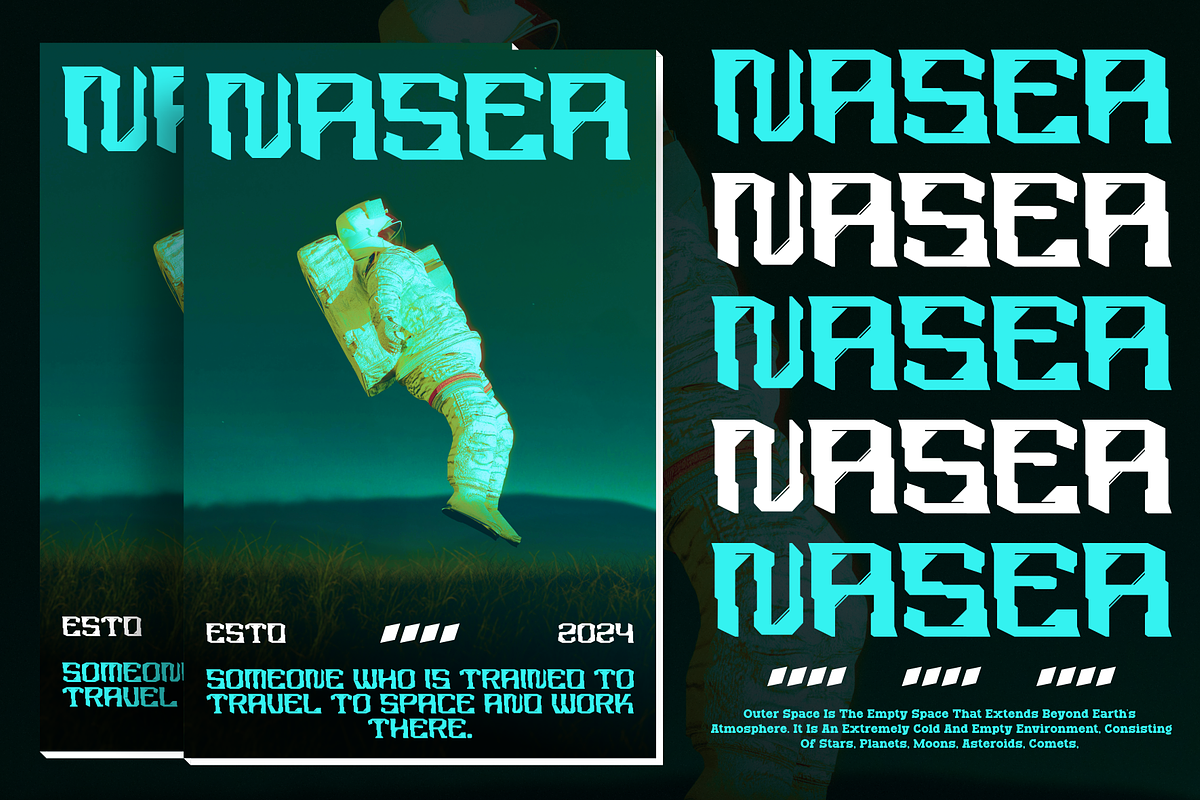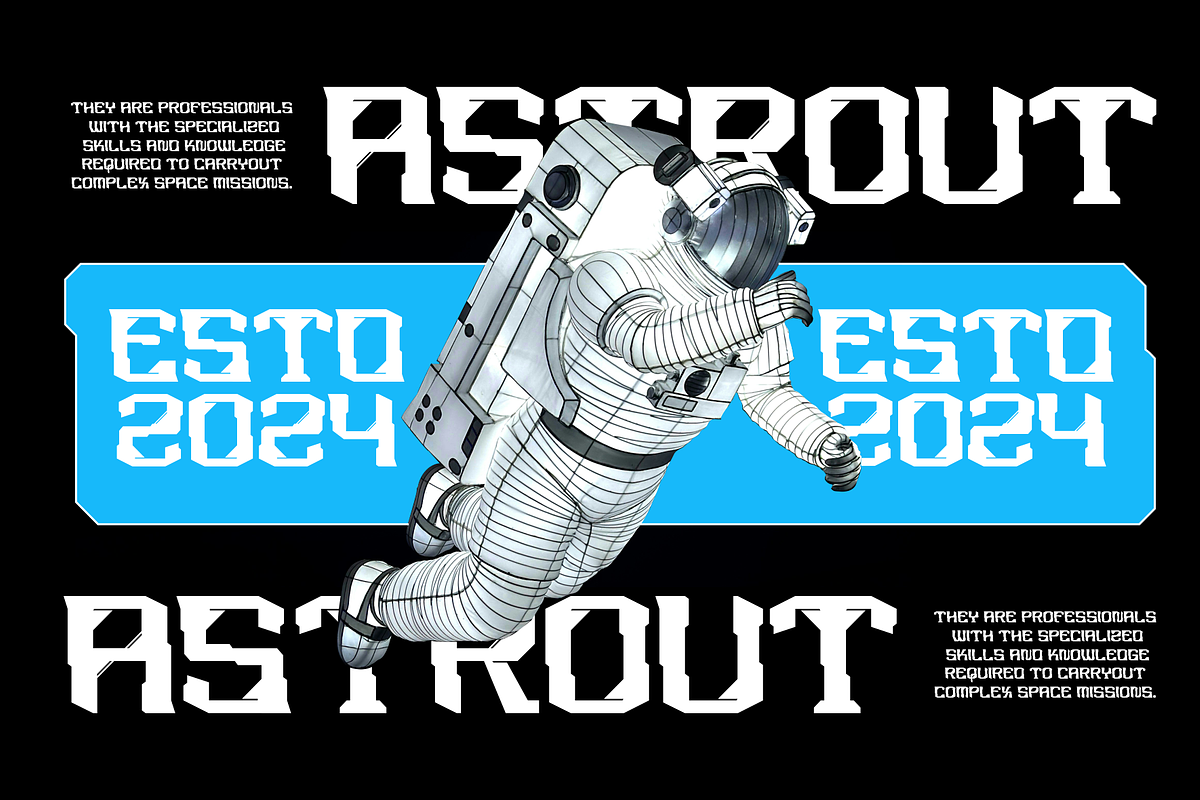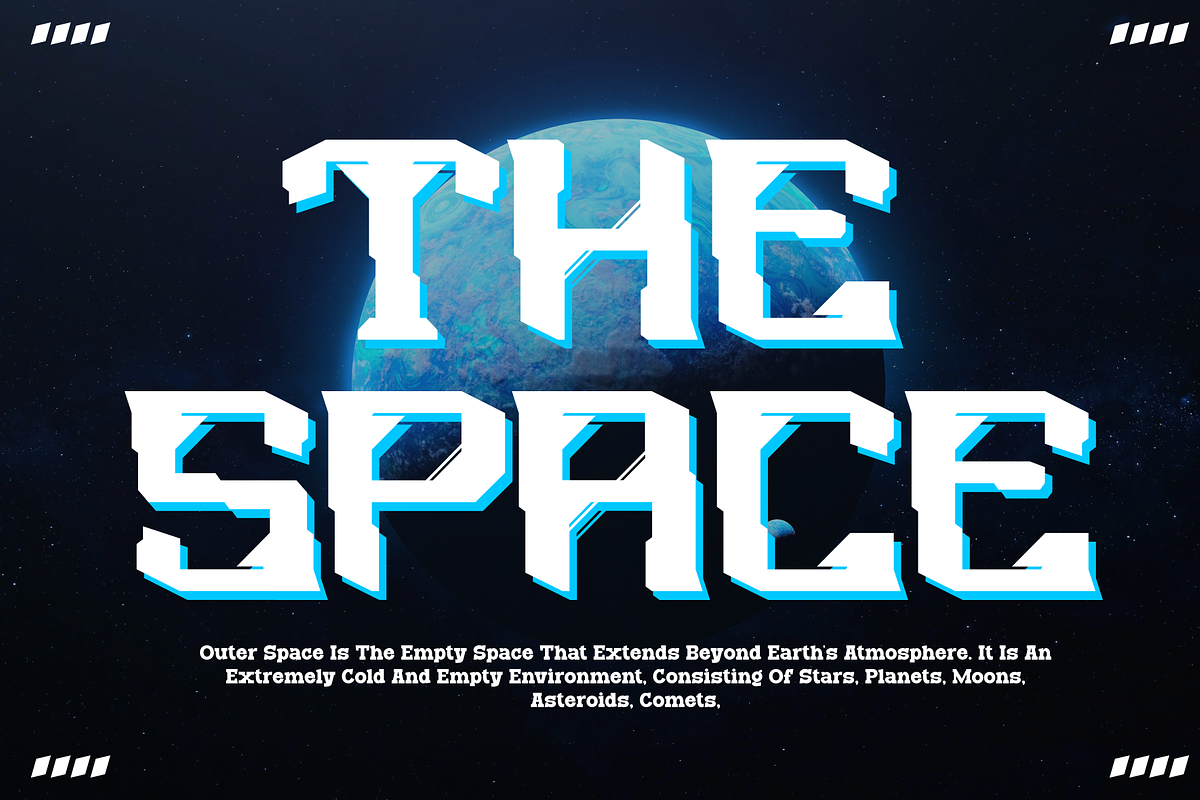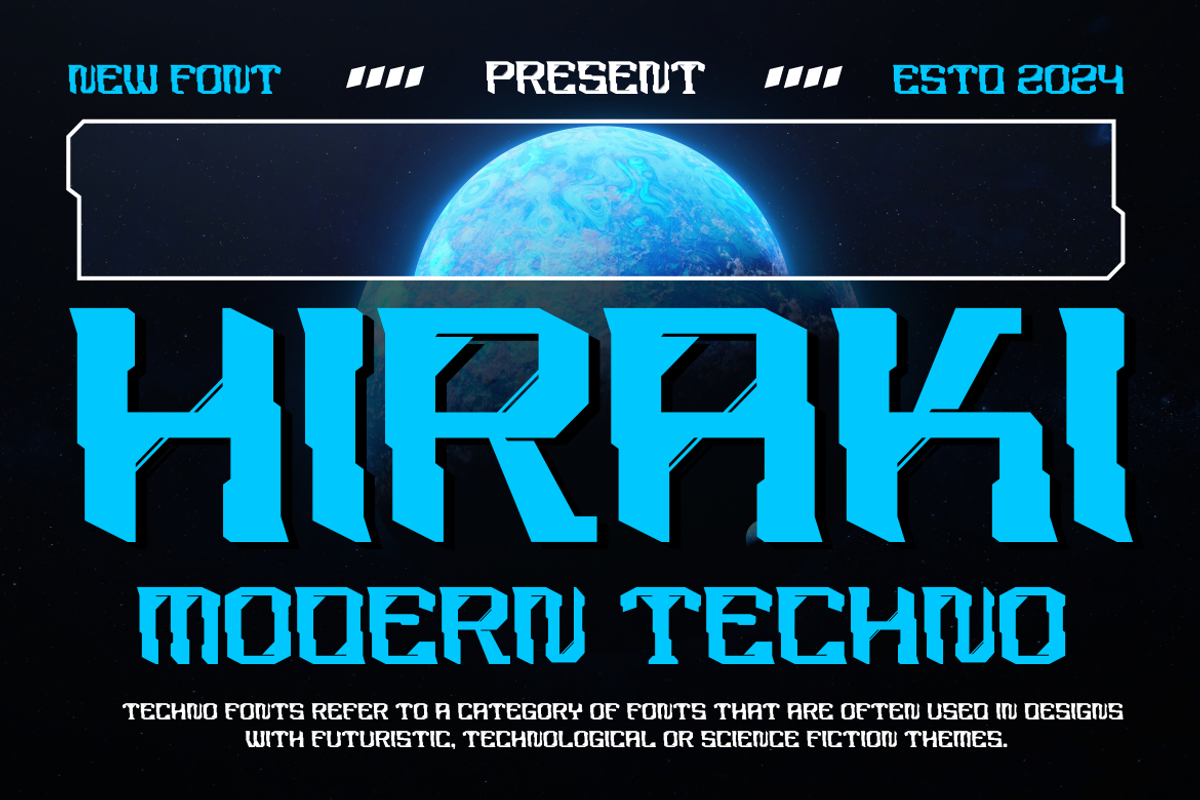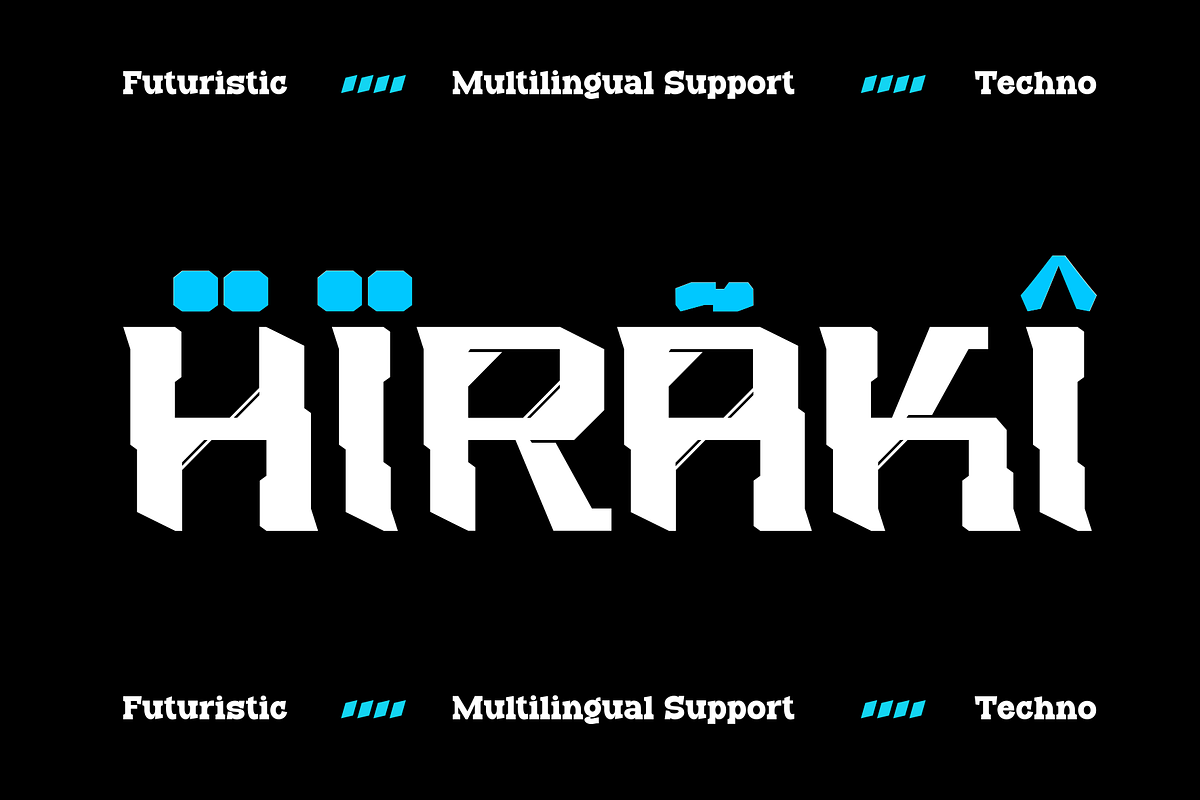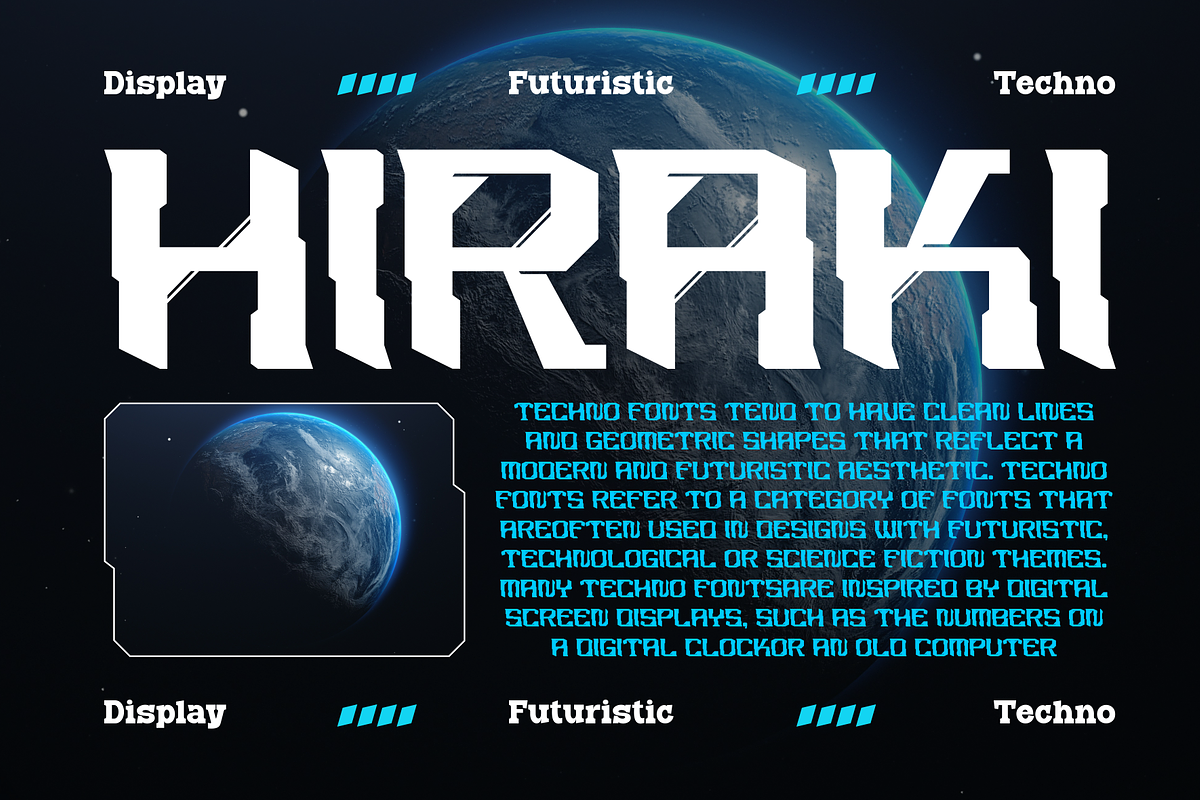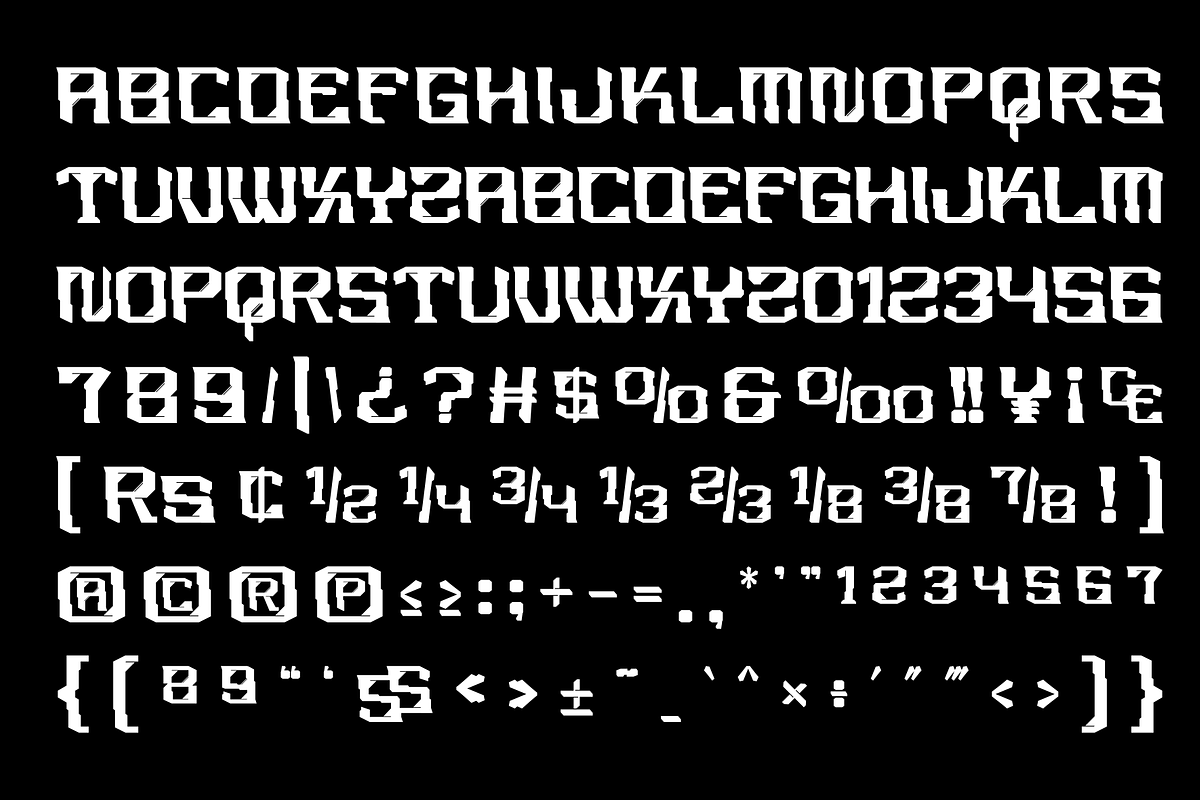
Hiraki - Modern Techno Font
Introducing our new product Hiraki - Modern Techno Font
This Font is a type of lettering that features a futuristic design inspired by advanced technology. This font reflects the digital era and technological advancements, bringing a sense of modernity, innovation, and energy to any design. With sharp lines, geometric letter shapes, and futuristic elements, this font is suitable for projects related to technology, robotics, science, and modern lifestyle. This font are often found in logos, website designs, posters, and other creative projects that require a futuristic touch.